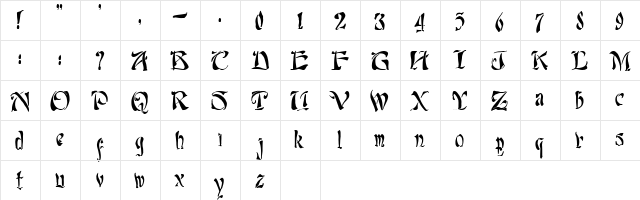
Lafcadio Normal
Design Context for Lafcadio Typeface
Lafcadio is a composed and adaptable typeface that performs quietly and consistently across a wide range of design contexts.